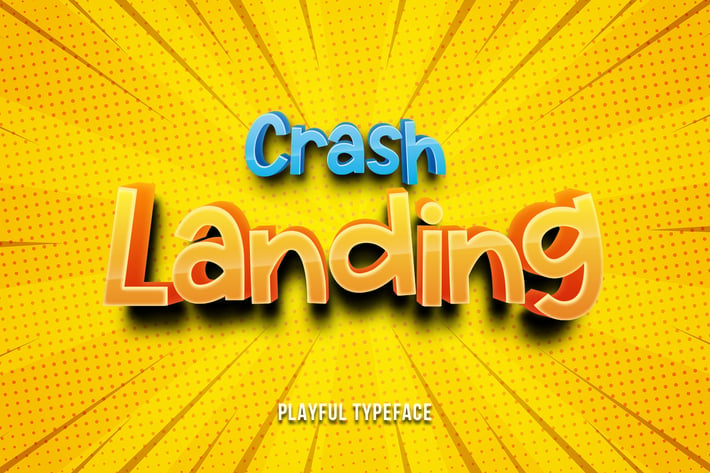
Crash Landing - Playful Font
Motokiwo
Crash Landing is a fun casual sans serif font that playfully designed for game, cartoon, or comic. This font also great for kids projects.